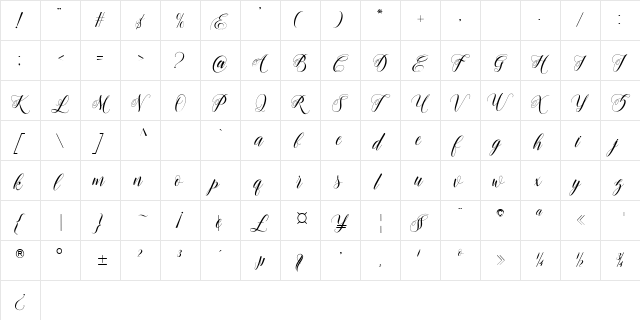
Rosenesya Regular
| Foundry | Jorsecreative |
Design Context for Rosenesya Typeface
Rosenesya is a composed and adaptable typeface that performs quietly and consistently across a wide range of design contexts.